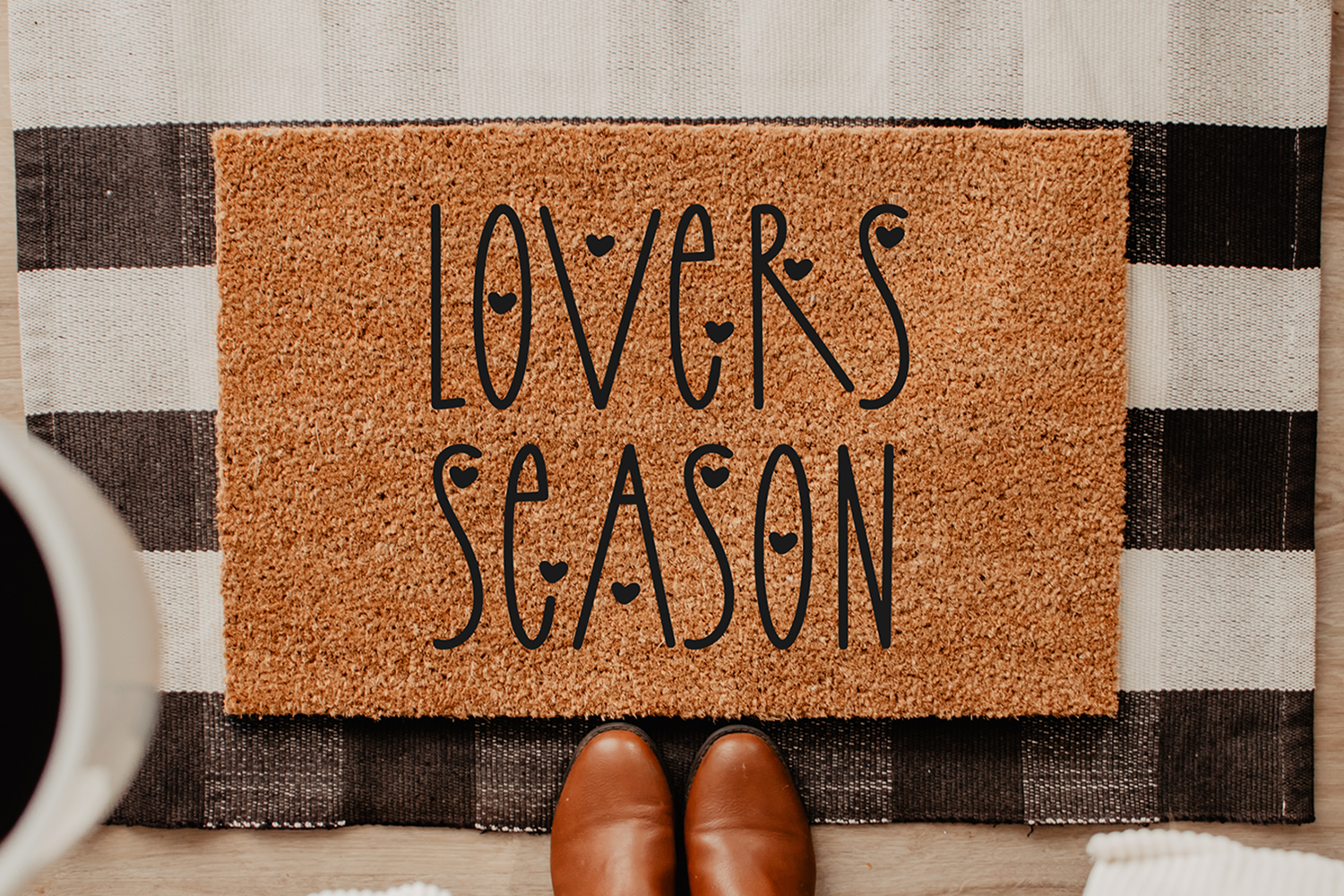
"PORCH OF LOVE" Farmhouse Valentine's Day font.
This font is a skinny farmhouse font that is perfect for social media or crafty projects. Use if for branding, crafts for decor, invitations, and more! All caps glyphs, numbers, and punctuation marks.